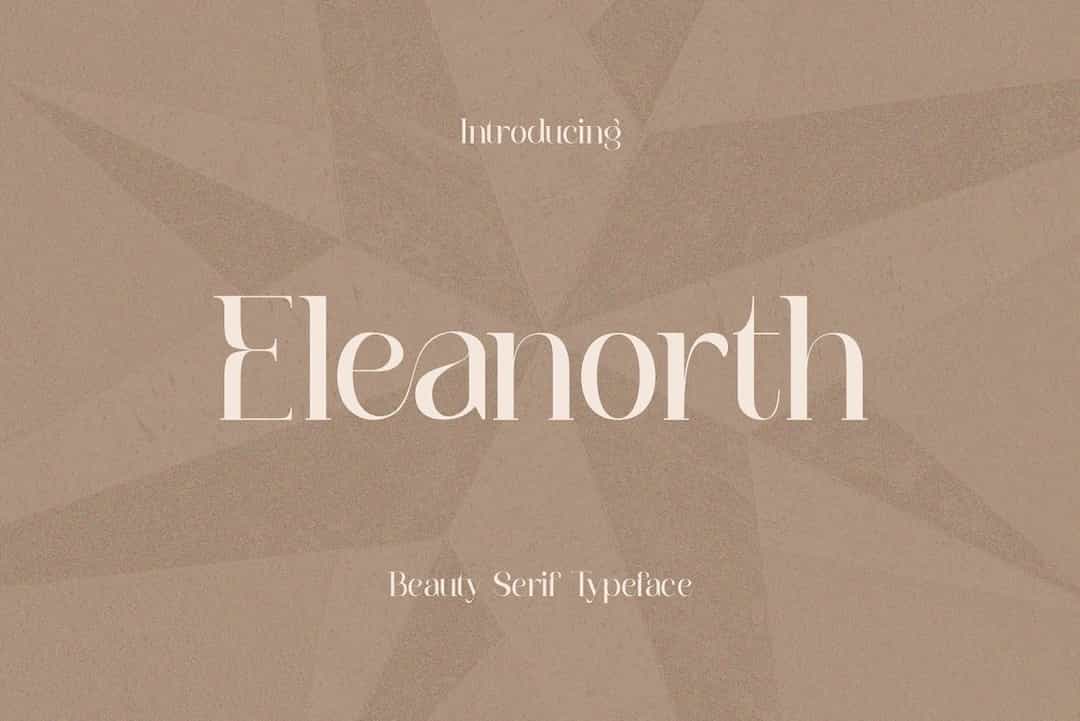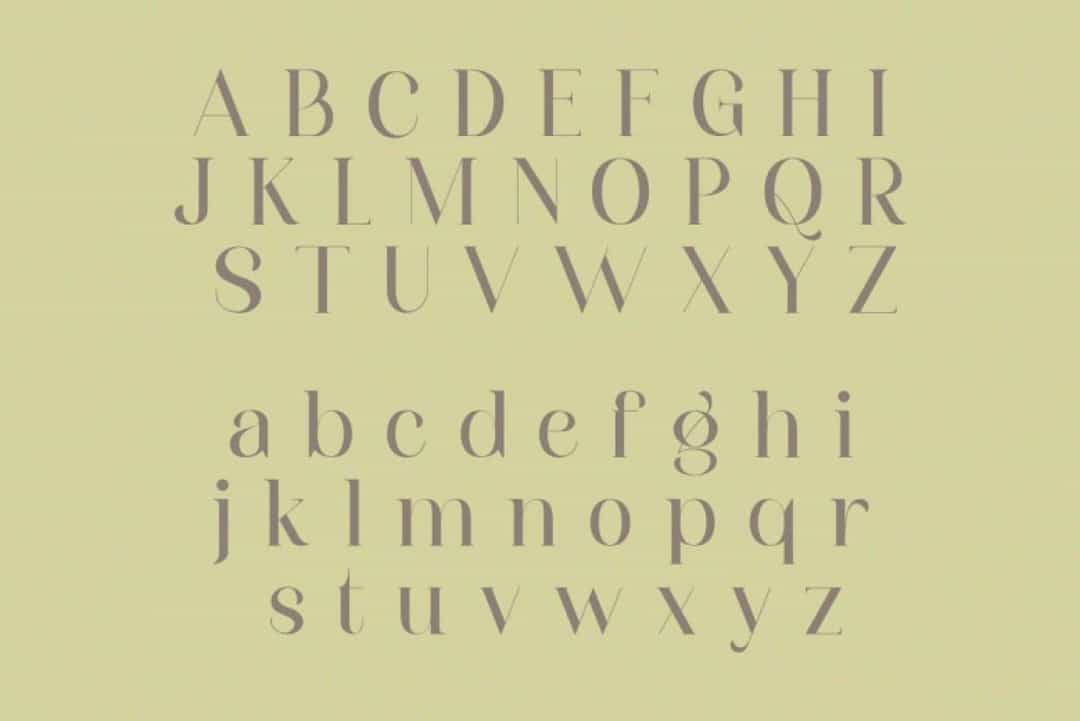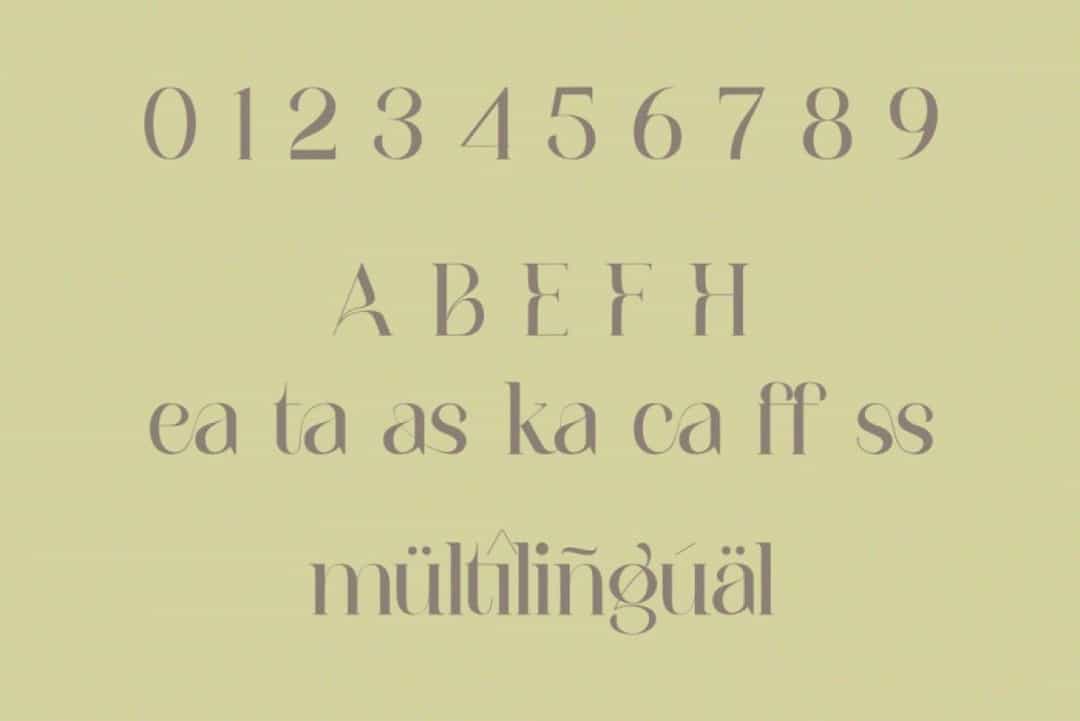
Eleanorth is an elegant serif typeface designed with an eye-catching chic aesthetic, perfectly suited for high-end projects featuring beautiful feminine aesthetics. Eleanorth’s chic aesthetic makes it the ideal choice to support trendy and chic designs such as editorials, logos, titles and much more.